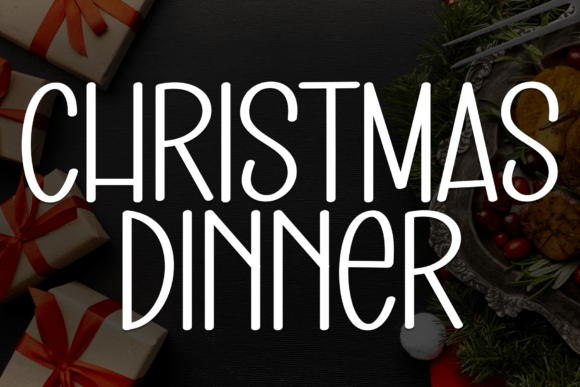
Christmas Dinner Font: A Sweet and Playful Handwritten Font for Your Holiday Designs
Are you looking for a font that captures the essence of the holiday season? Look no further than the Christmas Dinner Font! This sweet and playful handwritten font is perfect for adding a touch of fun and cheer to your designs, invitations, and projects. In this article, we’ll dive into the features and benefits of the Christmas Dinner Font, and explore how you can use it to make your holiday designs shine.
What is Christmas Dinner Font?
Christmas Dinner Font is a unique and charming handwritten font that is reminiscent of soft candy. Its smooth, curvy letters are designed to evoke a sense of fun and playfulness, making it perfect for holiday designs, invitations, and projects. The font’s sweet and cheerful appearance is sure to add a touch of happiness to your words, making it a great choice for anyone looking to create festive and engaging designs.
Key Features of Christmas Dinner Font
- Sweet and Playful Design: The Christmas Dinner Font features a unique and charming handwritten design that is perfect for adding a touch of fun and playfulness to your designs.
- Smooth and Curvy Letters: The font’s smooth and curvy letters are designed to evoke a sense of softness and sweetness, making it perfect for holiday designs and projects.
- Perfect for Fun Designs: The Christmas Dinner Font is ideal for creating fun and engaging designs, including invitations, greeting cards, and holiday projects.
- Easy to Read: The font is easy to read and understand, making it perfect for use in a variety of designs and projects.
Benefits of Using Christmas Dinner Font
The Christmas Dinner Font offers a range of benefits for designers and crafters looking to add a touch of fun and playfulness to their holiday designs. Some of the key benefits of using this font include:
- Adds a Touch of Happiness: The Christmas Dinner Font is designed to add a touch of happiness and playfulness to your words, making it perfect for holiday designs and projects.
- Perfect for Holiday Designs: The font’s sweet and cheerful appearance makes it perfect for use in holiday designs, including invitations, greeting cards, and projects.
- Easy to Use: The Christmas Dinner Font is easy to use and can be easily integrated into a variety of designs and projects.
- Unique and Charming: The font’s unique and charming design makes it stand out from other fonts, adding a touch of personality to your designs.
How to Use Christmas Dinner Font
The Christmas Dinner Font is easy to use and can be integrated into a variety of designs and projects. Here are some ideas for using this font:
- Holiday Invitations: Use the Christmas Dinner Font to create festive and engaging holiday invitations that are sure to impress your friends and family.
- Greeting Cards: The font is perfect for use in holiday greeting cards, adding a touch of fun and playfulness to your messages.
- Holiday Projects: Use the Christmas Dinner Font to add a touch of sweetness and cheer to your holiday projects, including scrapbooking, crafting, and more.
- Social Media Graphics: The font is also perfect for use in social media graphics, adding a touch of fun and playfulness to your holiday posts and updates.
Tips for Getting the Most Out of Christmas Dinner Font
Here are some tips for getting the most out of the Christmas Dinner Font:
- Use it with Color: The Christmas Dinner Font looks great when paired with bright and festive colors, adding to its playful and cheerful appearance.
- Experiment with Sizes: The font can be used in a variety of sizes, from small and delicate to large and bold.
- Pair it with Other Fonts: The Christmas Dinner Font can be paired with other fonts to create a unique and eye-catching design.
- Have Fun: The most important thing is to have fun and be creative with the Christmas Dinner Font! Experiment with different designs and ideas to find what works best for you.
In conclusion, the Christmas Dinner Font is a sweet and playful handwritten font that is perfect for adding a touch of fun and cheer to your holiday designs. With its smooth, curvy letters and sweet appearance, this font is sure to bring a smile to the faces of your friends and family. Whether you’re creating holiday invitations, greeting cards, or projects, the Christmas Dinner Font is a great choice for anyone looking to add a touch of happiness to their words.